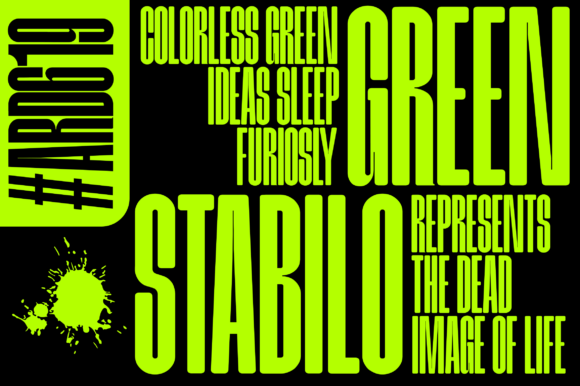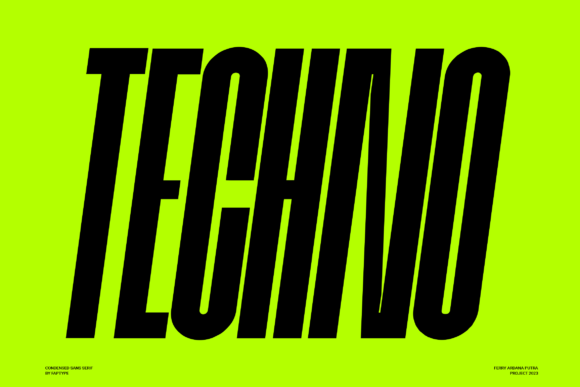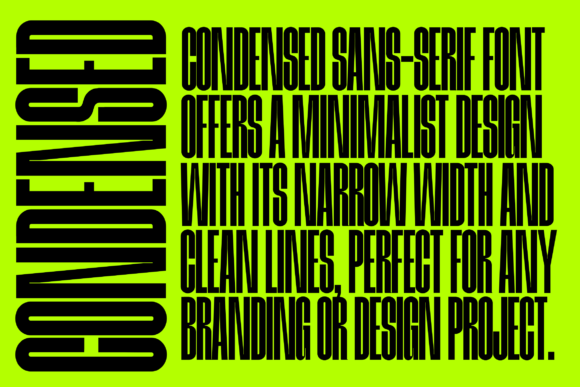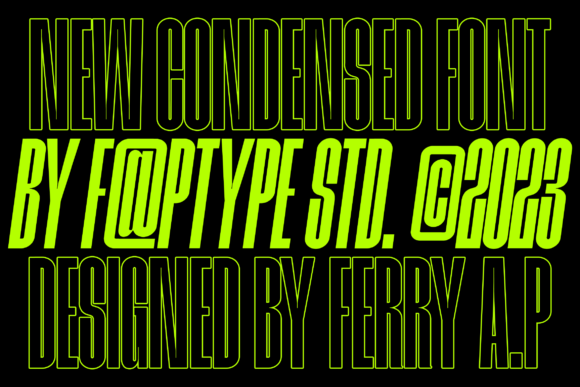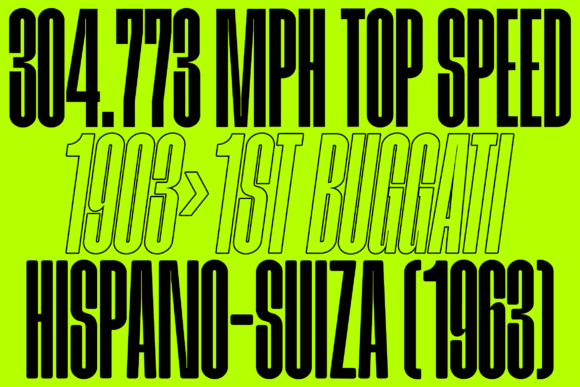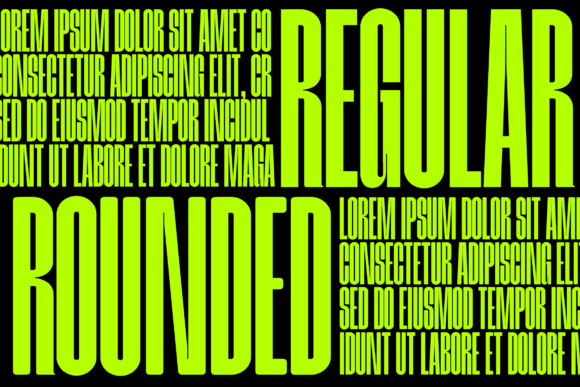
Introduction to Meuga Font
Do you remember the moment when you finally found the perfect font for your creative project? It’s that feeling of excitement and relief when everything falls into place. For designers, it’s essential to have a reliable design resource that can elevate their work. That’s where the Meuga Font comes in – a sleek and modern condensed sans-serif font that’s perfect for adding a touch of sophistication to your designs.
With its narrow width and clean lines, the Meuga Font is an excellent choice for anyone looking for a high-quality font that can make their designs stand out. Whether you’re working on a branding project or creating a new logo, this font is sure to impress. Plus, with its transparent background, you can easily combine it with other design elements to create a stunning visual effect. And the best part? The Meuga Font is available for free download, making it an accessible design resource for creatives of all levels.
- Unique characteristics: Meuga Font features a unique, modern design aesthetic, making it an excellent choice for designers looking for a distinctive font for their creative project.
Honest Review: Meuga Font
I recently stumbled upon the Meuga Font and was excited to dive in and see what it had to offer. As a designer, I’m always on the lookout for high-quality design resources to enhance my creative projects. The Meuga Font did not disappoint.
- What works well: ✨ The Meuga Font is incredibly versatile and can be used in a wide range of design applications. It’s perfect for logos, branding, and even web design. The font is also available for free download, which is a definite bonus.
- What works well: ✨ The transparent background option is a great feature, allowing for seamless integration with any design element.
One thing that did catch my attention was the font’s unique style, which sets it apart from more generic fonts. The Meuga Font has a modern, edgy feel that’s perfect for designers looking to add some personality to their projects.
However, I did encounter a few limitations: ⚠️ The font’s compatibility with certain software can be a bit finicky, and I experienced some issues with rendering on older systems. Additionally, the font’s character set is not as extensive as some other fonts I’ve worked with.
Overall, I’m impressed with the Meuga Font and would definitely recommend it to fellow designers. While it may not be perfect, its strengths far outweigh its limitations, making it a valuable addition to any design resource library.
Meuga Font
The Meuga Font is a high-quality design resource perfect for creative projects. It’s available for free download with a transparent background, making it a versatile choice for various designs.
Tips for Getting the Most Out of Meuga Font
To get the most out of the Meuga Font, experiment with different font sizes, colors, and styles to create unique and eye-catching designs. You can also combine the Meuga Font with other design elements to create a cohesive look.
The Meuga Font is suitable for a variety of creative projects, including logos, branding materials, and marketing materials. Its high-quality design and transparent background make it a versatile choice for various designs.